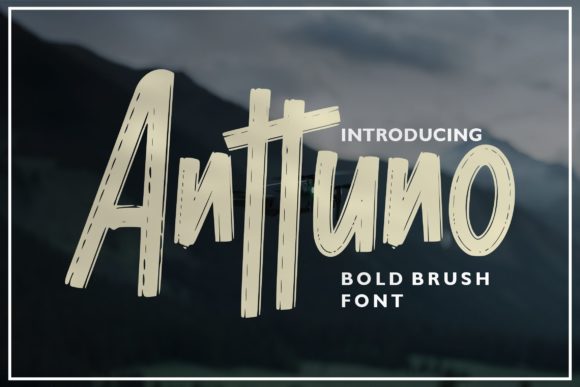
Introducing Anttuno Font, the captivating decorative typeface that will transform your designs. With its bold brush strokes and elegant calligraphy style, Anttuno is the perfect choice for creating awe-inspiring invitations, greeting cards, branding materials, and posters.
Indulge in the versatility of Anttuno, a font that effortlessly enhances any project. Its intricate details and eye-catching appearance make it a masterpiece for the web, adding a touch of intrigue to your small print.
Embrace the allure of Anttuno, a font crafted by the renowned Vunira. Its beauty transcends ordinary, captivating your audience with its grace and charm.
Imagine the invitations that will leave a lasting impression, the greeting cards that convey heartfelt messages with flair, and the branding materials that exude sophistication. With Anttuno, your designs will soar to new heights.
Unleash your creativity and let your imagination run wild. Anttuno is the font that will ignite your passion for design, empowering you to create masterpieces that resonate with your audience.